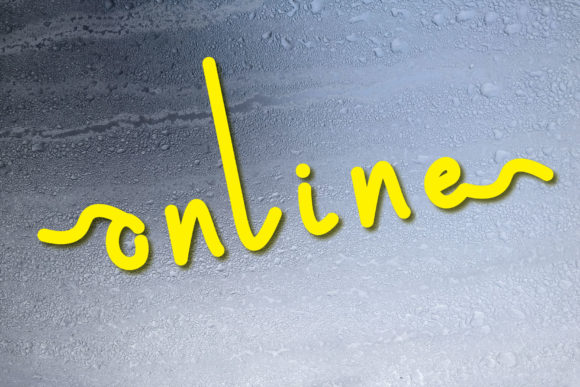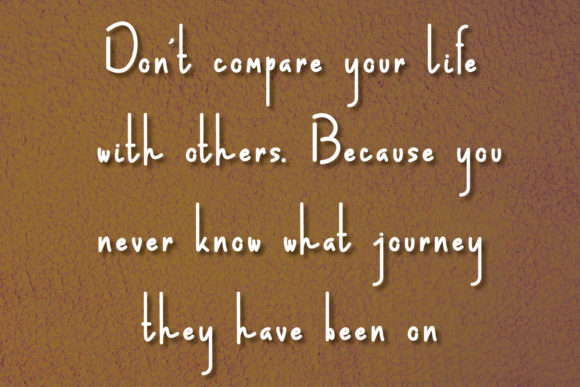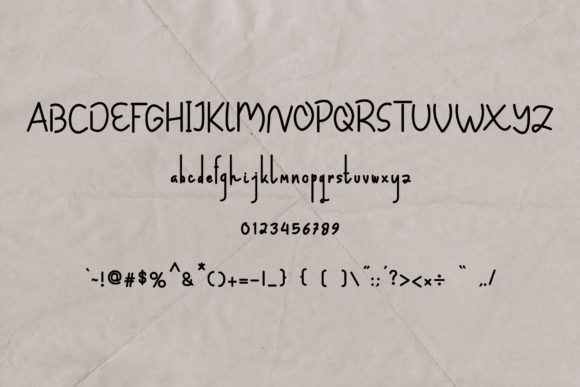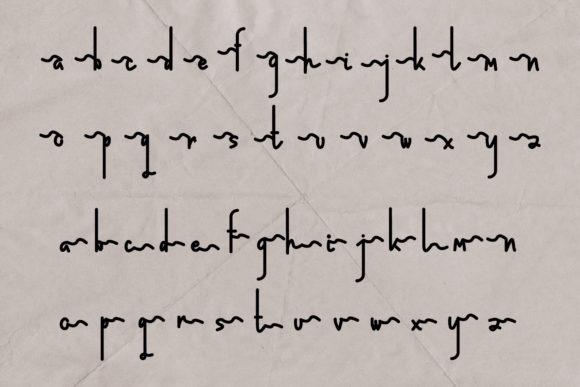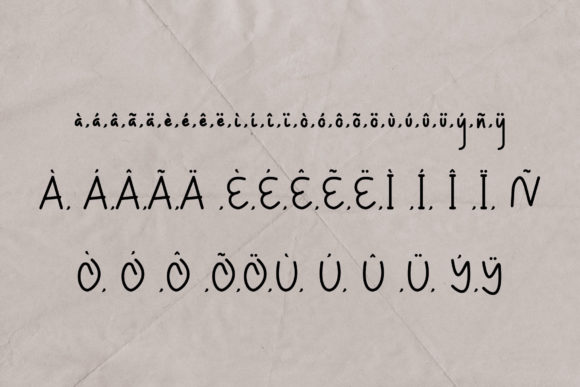
About Online Font
Online is a refined and graceful handwritten font that exudes elegance and charm. Its delicate swashes and flowing lines add a touch of sophistication to any design. With its original and unique appearance, Online is a versatile font that can be used for a wide range of creative projects.
Whether you’re creating letterheads, titles, or stationery, Online will elevate your designs and give them a distinct and stylish look. The font’s dainty and elegant swashes create a sense of handcrafted beauty, making it perfect for adding a personal touch to your projects.
As an elegant and dainty script font, Online is ideal for formal invitations, elegant event materials, and sophisticated branding. Its PUA encoding allows for easy access to all the glyphs and swashes, giving you the freedom to experiment and create beautiful and eye-catching designs.
The versatility of Online makes it suitable for various contexts, from wedding invitations to business cards, and even digital designs and social media posts. Its timeless and classic style will never go out of fashion, making it a reliable choice for any project that requires a touch of elegance.
In summary, Online is a font that exudes elegance and charm with its delicate swashes and graceful letterforms. Whether you’re designing for formal events or crafting personal stationery, this font will add a touch of sophistication and originality to your projects, ensuring they stand out and leave a lasting impression on your audience.